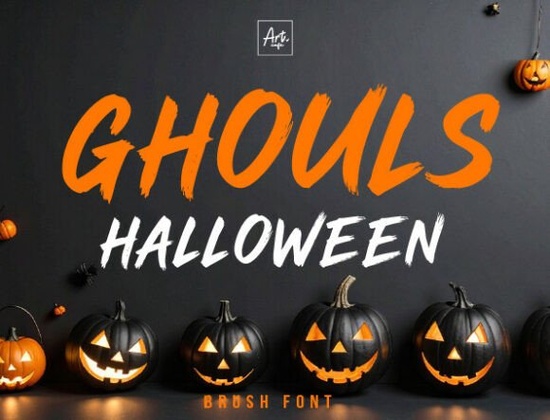
The Ghouls Halloween font is a standout choice for anyone looking to add a bold, artistic touch to their design projects. Whether you're working on a Halloween-themed poster, a custom t-shirt, or a branding project, this display font brings a unique energy that’s both eye-catching and versatile. Its handmade feel, combined with the subtle influence of ink and brush strokes, gives it a one-of-a-kind character that can elevate any visual.
Designed with attention to detail, the Ghouls Halloween font isn’t just for seasonal projects. Its dynamic look works well in headlines, logos, and other display settings where a strong visual impact is needed. The font’s distinct style makes it perfect for creative professionals who want to express a sense of freedom and intensity without relying on standard typefaces.
If you’re exploring fonts that combine retro vibes with modern appeal, the Ghouls Halloween font fits right in. It shares similarities with other popular display fonts like retro distressed fonts and Cartius font, but stands out with its own personality. Its versatility means it can be used across different mediums, from print to digital, making it a valuable addition to any designer’s toolkit.
What Makes Ghouls Halloween Font Unique?
One of the key features of the Ghouls Halloween font is its handmade aesthetic. Unlike many digital fonts that feel uniform, this one has a natural variation that mimics real ink and brush movement. This gives it a more organic and expressive feel, which can be especially appealing for artists and designers who want to add a personal touch to their work.
The font also offers a range of stylistic options, allowing users to adjust the look based on their needs. Whether you want a more dramatic effect or something subtler, there are ways to customize the appearance without losing the font’s core identity. This flexibility makes it suitable for a wide variety of applications, from packaging designs to social media graphics.
Best Uses for Ghouls Halloween Font
This font shines in situations where you need to grab attention quickly. Headlines, banners, and promotional materials benefit greatly from its bold presence. For example, a print-on-demand seller might use it for t-shirt designs, while a small business could apply it to marketing materials to create a memorable brand image.
It’s also ideal for crafters and hobbyists who want to add a unique flair to their projects. Whether you're creating handmade cards, custom signs, or decorative elements, the Ghouls Halloween font adds a sense of creativity and individuality. Its distinctive look helps your work stand out in a crowded market.
Whether you're a designer, crafter, or small business owner, the Ghouls Halloween font offers a powerful way to enhance your visual content. Its combination of style, versatility, and artistic appeal makes it a great choice for a wide range of projects.
- Use the font for headlines and logos to create a strong visual impact.
- Experiment with different color schemes to highlight its unique characteristics.
- Combine it with other fonts to balance boldness with readability.
- Explore how it works in both print and digital formats.
By incorporating the Ghouls Halloween font into your design process, you can bring a fresh and dynamic element to your creative work. Its handmade feel and striking appearance make it a valuable tool for anyone looking to stand out in their field.